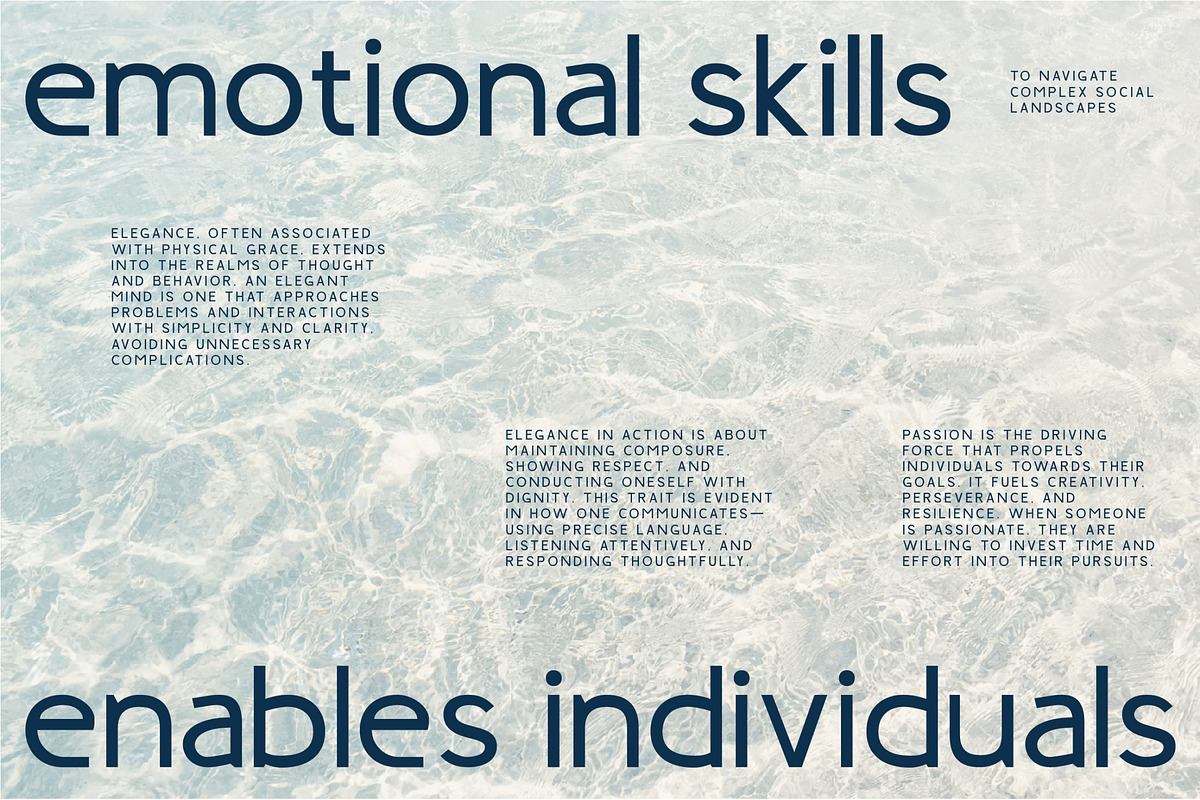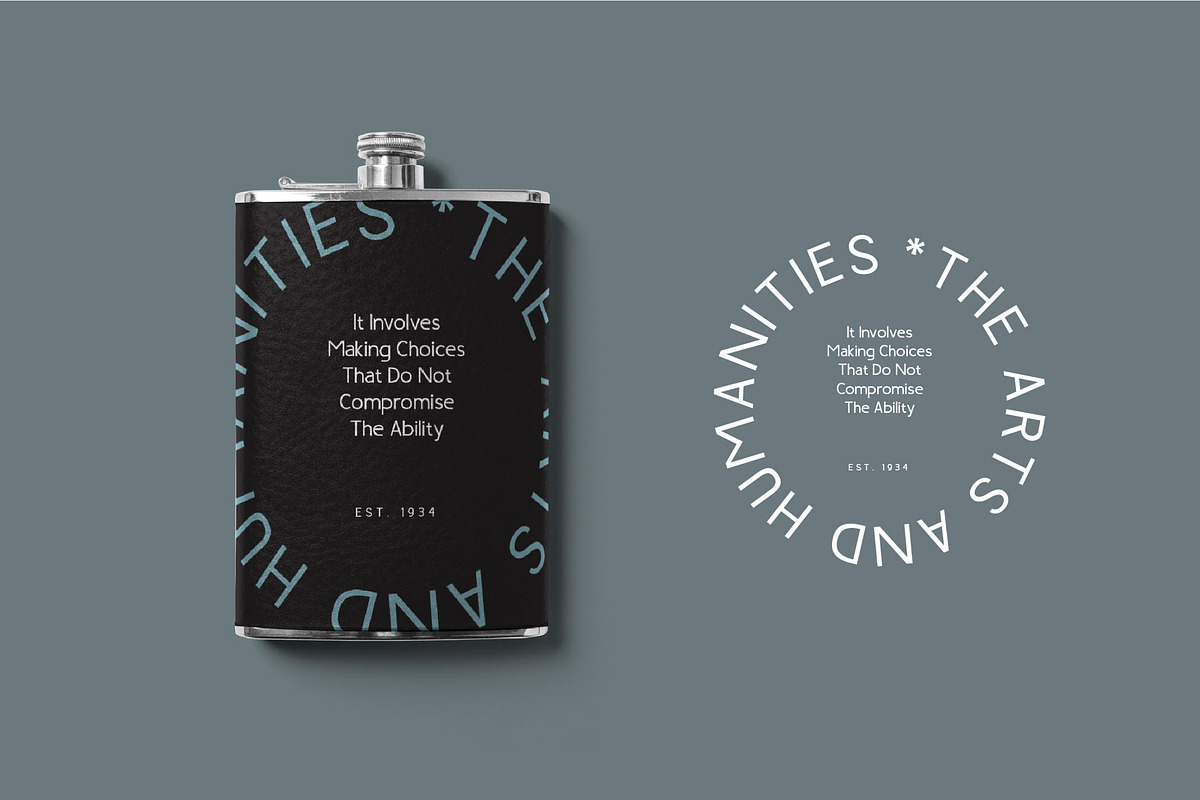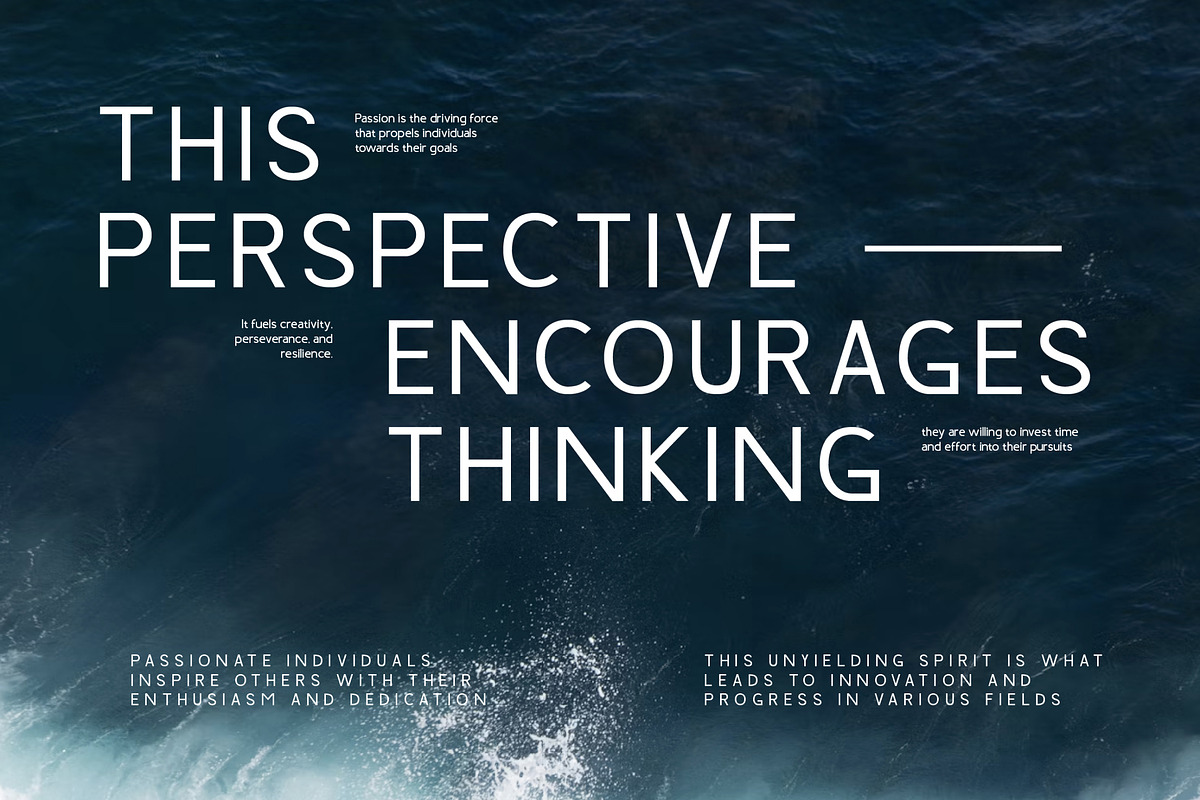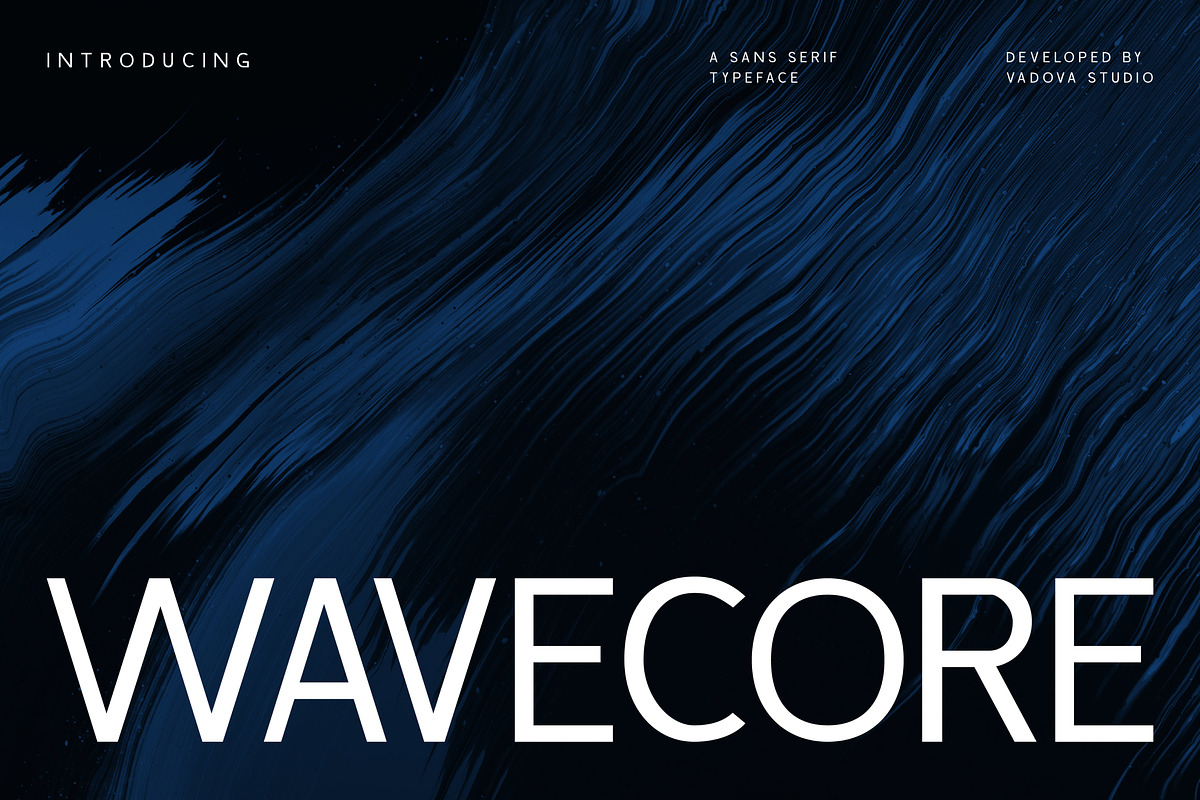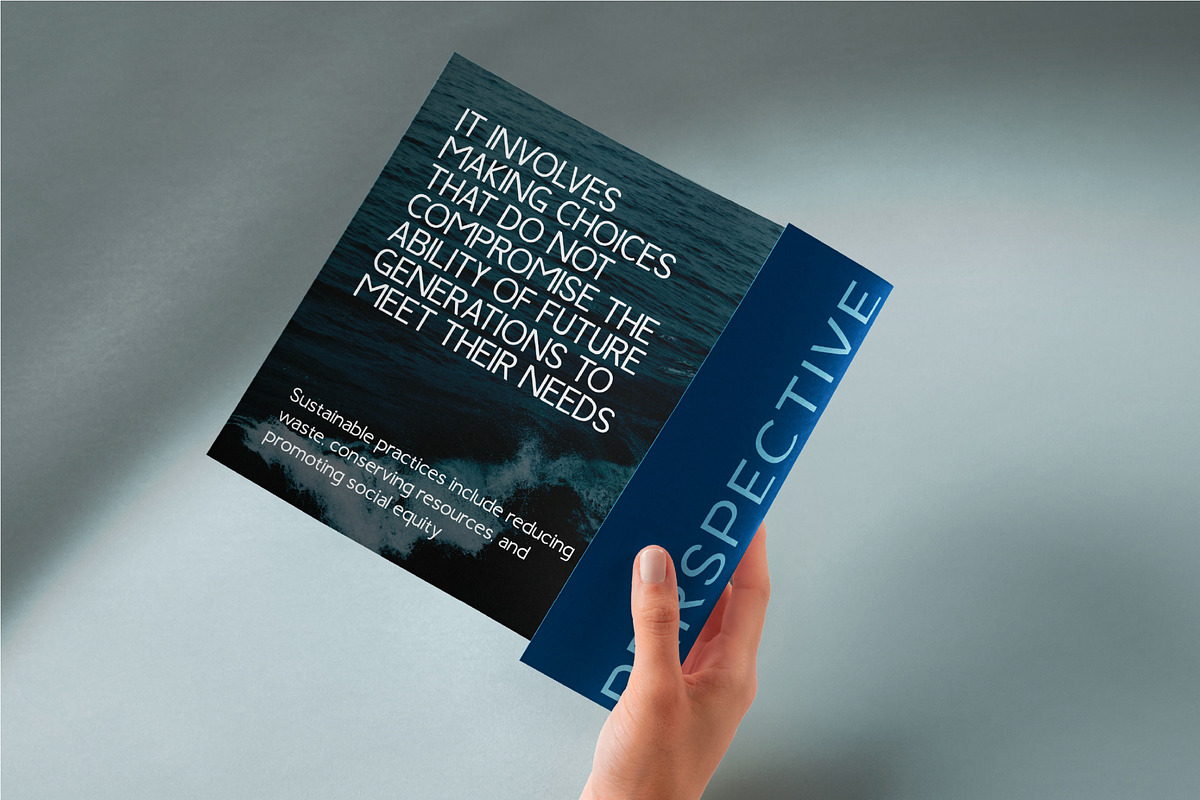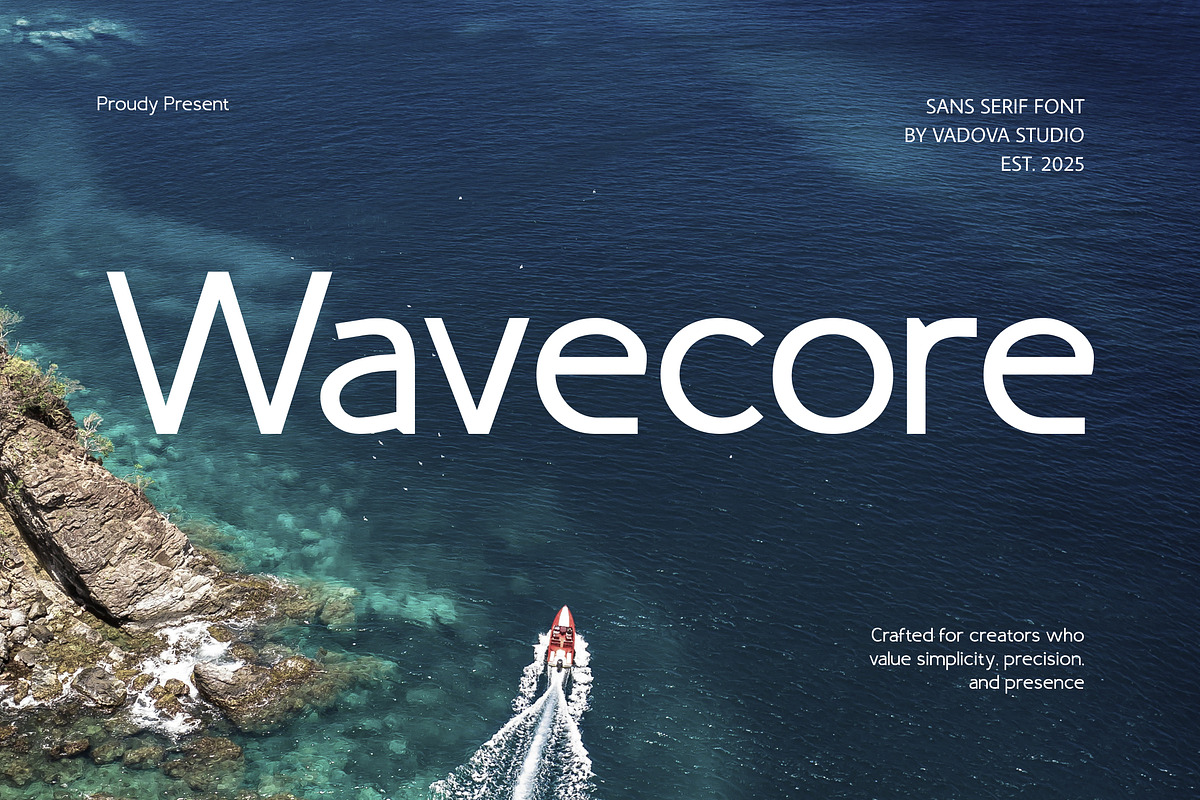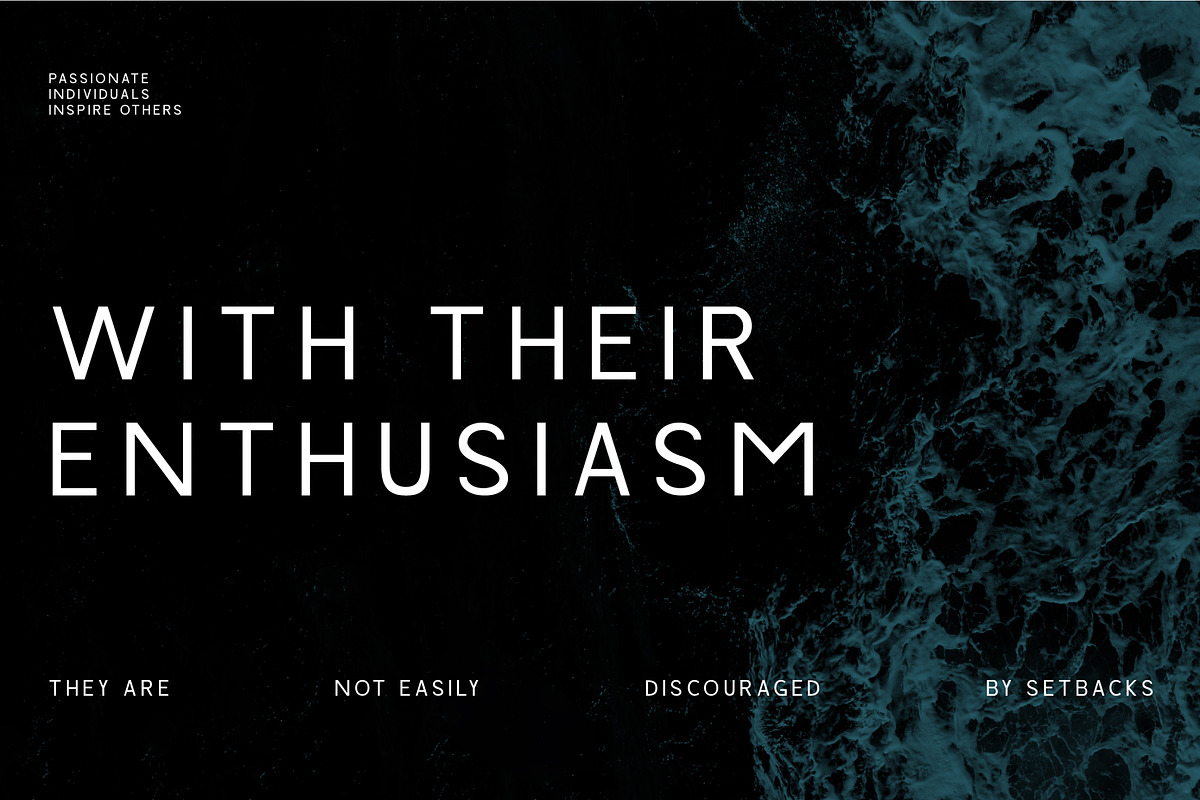
Wavecore – Modern Sans Serif
Wavecore is a modern sans serif typeface inspired by the rhythm of technology and the flow of design. With its clean geometric structure and contemporary elegance, Wavecore delivers clarity and strength while remaining versatile for both digital and print applications. It’s a font built for the future—perfect for projects that need a sleek, innovative, and professional voice.
Why Choose Wavecore:
Futuristic design with clean, modern proportions
Versatile usability across tech, branding, and editorial work
Minimalist aesthetic that adapts to multiple industries
Balanced letterforms designed for readability and impact
Tech startups & innovative branding
App & website UI/UX design
Modern corporate identity & presentations
Posters, flyers, and editorial layouts
Futuristic advertising & digital campaigns
Social media content with a clean, modern vibe
Modern sans serif style
Sleek geometric letterforms
Futuristic yet timeless character
Strong readability in large and small sizes
A typeface that combines innovation, clarity, and style
Empower your design with the modern flow of Wavecore—a typeface crafted for the new era of branding and technology.